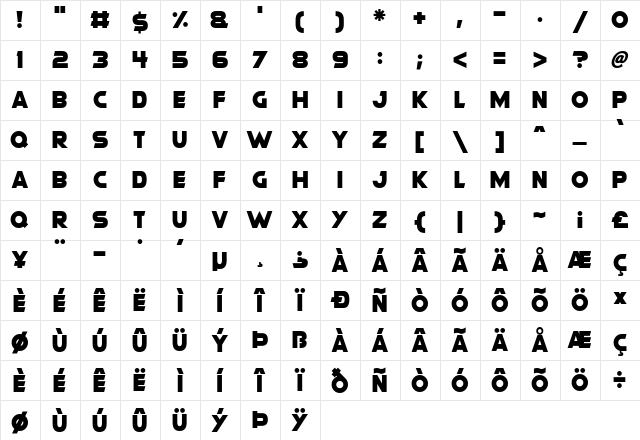
Modern Machine Regular Font Preview
Modern Machine Regular
Design Context for Modern Machine Typeface
Modern Machine takes a measured approach to typography — its balanced proportions and neutral character make it a reliable workhorse for both digital and print work.